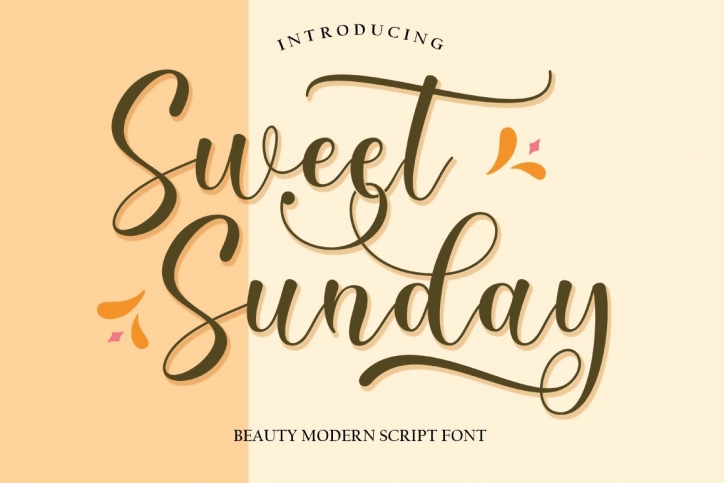
Sweet Sunday script is a beautiful font that was designed by Slex Studio. It's a great choice for designers and creatives who need such a font. It was released on July 31, 2022 and the file size is 6.76 MB. Sweet Sunday script may give a more youthful, expressive and casual look to your project. It is a very beautiful, refined, elegant, and high-quality font.